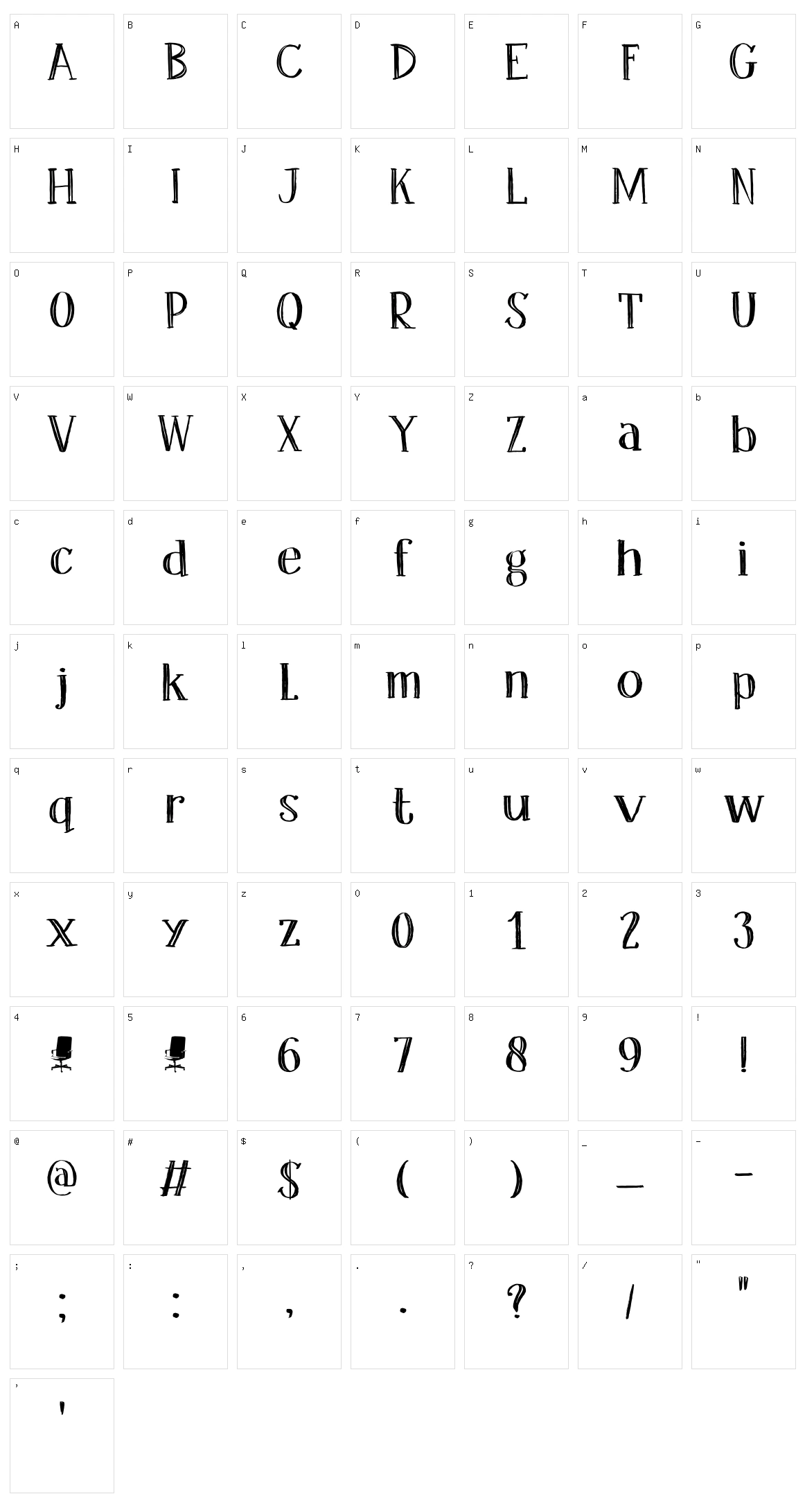
The free font DK Office Squeeze is carefully designed by Hanoded, showcasing a thoughtful balance of creativity and usability and falls under the Cartoon font style. When you download the ZIP file, it contains only 765.66 KB of font files, making it lightweight and quick to download. Please review the license details below to understand permitted usage and distribution rights. If license information is not available, we recommend using this font for personal projects only or contacting the author directly for commercial usage permissions.